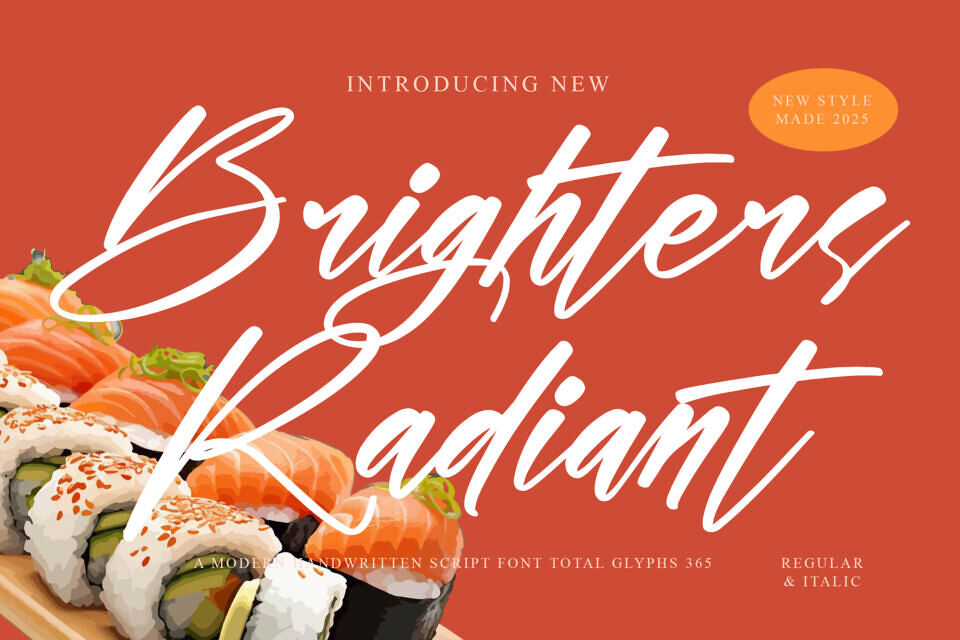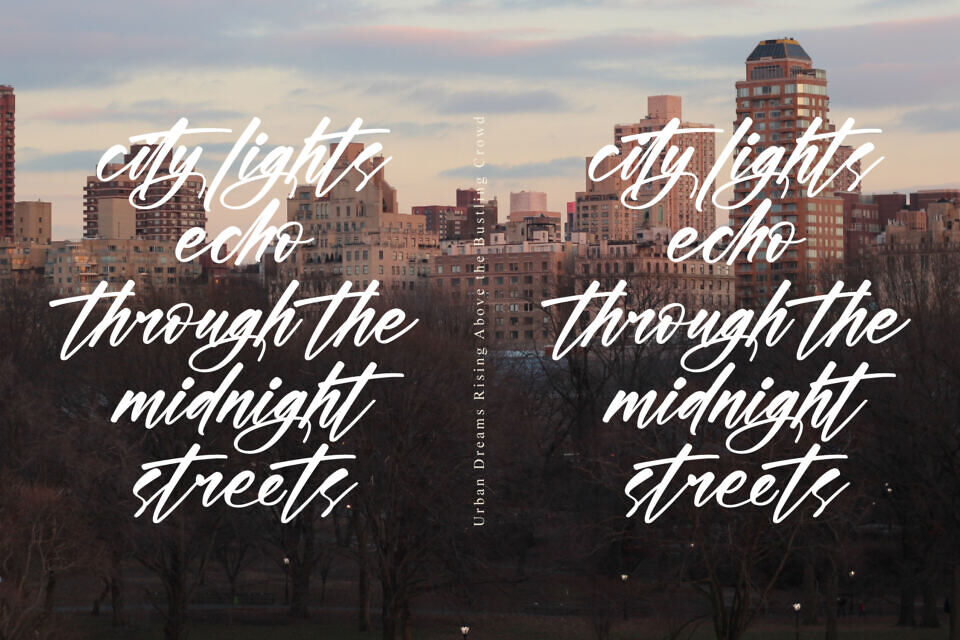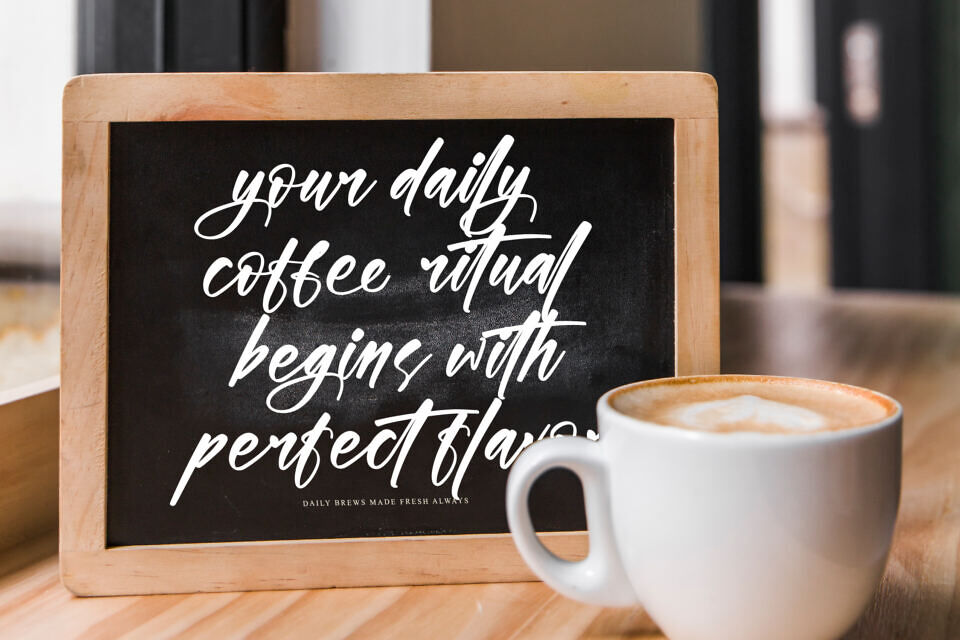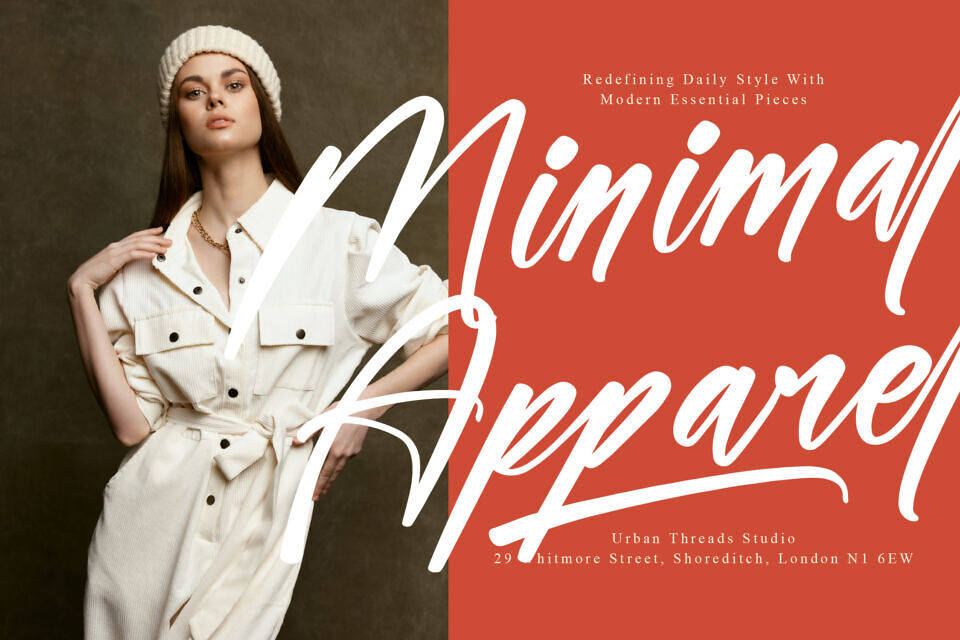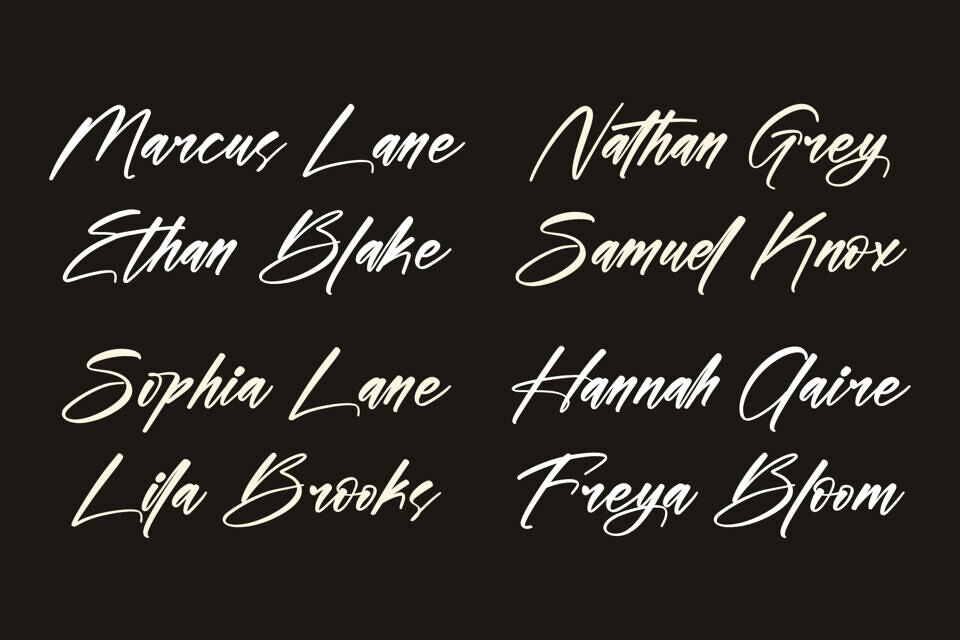
Brighters Radiant is a contemporary handwritten script font that blends elegant penmanship with modern design sensibilities. Featuring smooth flowing strokes, confident curves, and refined handwritten details, this typeface is crafted to create typography that feels authentic, sophisticated, and visually captivating.
From luxury branding and product packaging to editorial layouts and digital campaigns, Brighters Radiant delivers a polished handwritten aesthetic that enhances every design with warmth and personality.